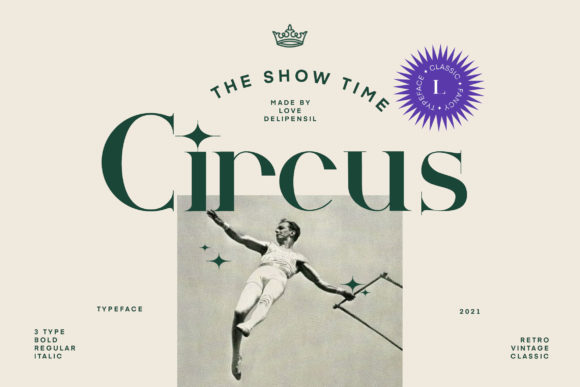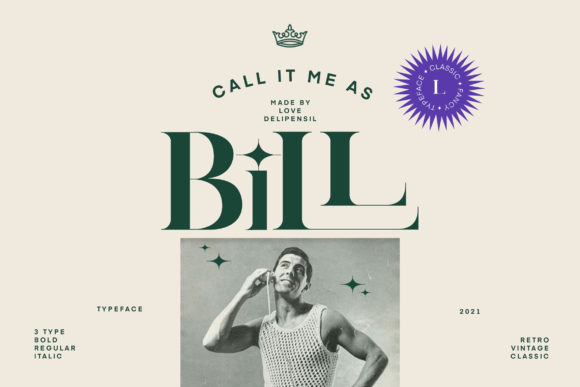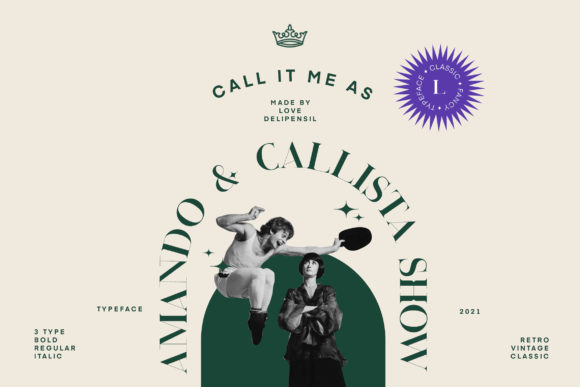
Introduction to Ligtra Font
Have you ever been working on a creative project, pouring your heart and soul into it, only to feel like something’s missing? That’s when you stumble upon a game-changing design resource that elevates your entire project. For me, that moment happened when I discovered the Ligtra Font.
As a designer, I can attest to the importance of having the right font at your fingertips. The Ligtra Font is a trendy and elegant serif font that’s not only visually stunning but also incredibly versatile. With its PUA encoding, you can access all glyphs and swashes with ease, making it a valuable addition to any design project.
- Designed with a unique, modern aesthetic, making it perfect for contemporary designs and projects.
Honest Review: Ligtra Font
I recently stumbled upon the Ligtra Font and I’m excited to share my thoughts on this free download. As a designer, I’m always on the lookout for high-quality design resources to elevate my creative projects.
What works well is the Ligtra Font’s versatility – it’s perfect for a wide range of applications, from branding to editorial content. The font’s sleek and modern design makes it an excellent choice for designers who want to add a touch of sophistication to their work. I particularly love how it can be used with a transparent background to create a sense of depth and dimension.
- High-quality design: The Ligtra Font is well-crafted and looks great at various font sizes.
- Customizable: The font is available in various styles and weights, making it easy to customize to fit your design needs.
While the Ligtra Font is a great addition to any designer’s toolkit, I do have a few minor complaints. ⚠️ The font can be a bit difficult to read at very small sizes, and it may not be the best choice for body text. Additionally, the font’s design can be a bit too minimalist for some tastes.
For optimal results, use Ligtra Font with a transparent background to achieve a clean and minimalist design. Common use cases include creating logos, infographics, and presentations that require a high-quality, modern font.
Comparison to Ligtra Font: While Ligtra Font has a more dramatic and elegant feel, Open Sans is more straightforward and modern. If you’re looking for a font that’s easy to read and works well in a variety of contexts, Open Sans is a great choice.